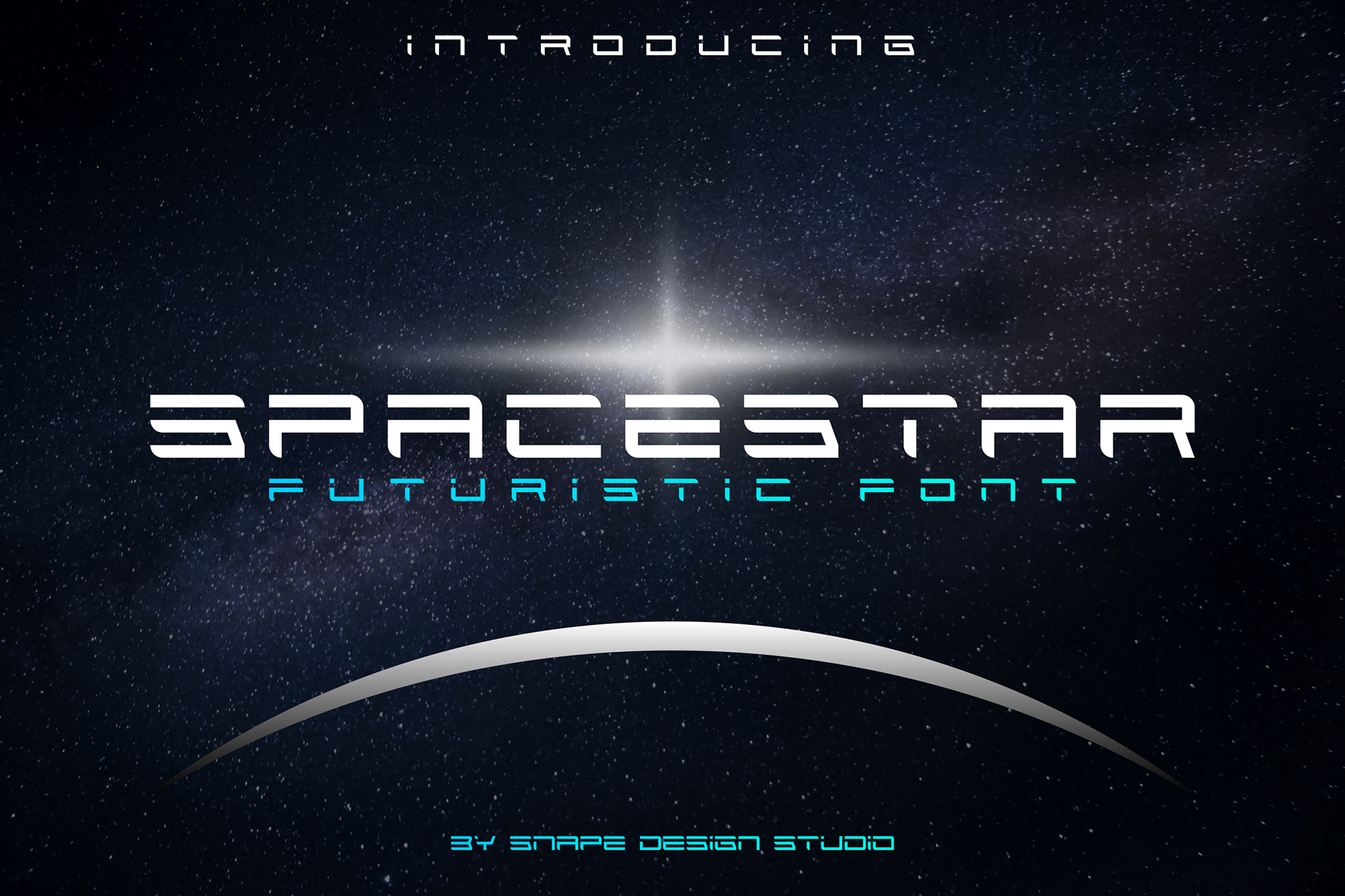
Spacestar - Futuristic Font
Spacestar is a futuristic display font. It celebrates abstract shapes in all their eclectic beauty. Add this font to your creative ideas and notice how it will make them stand out!
Great for Logo, Sticker, Notes, Invitation Card, Brochure, etc.